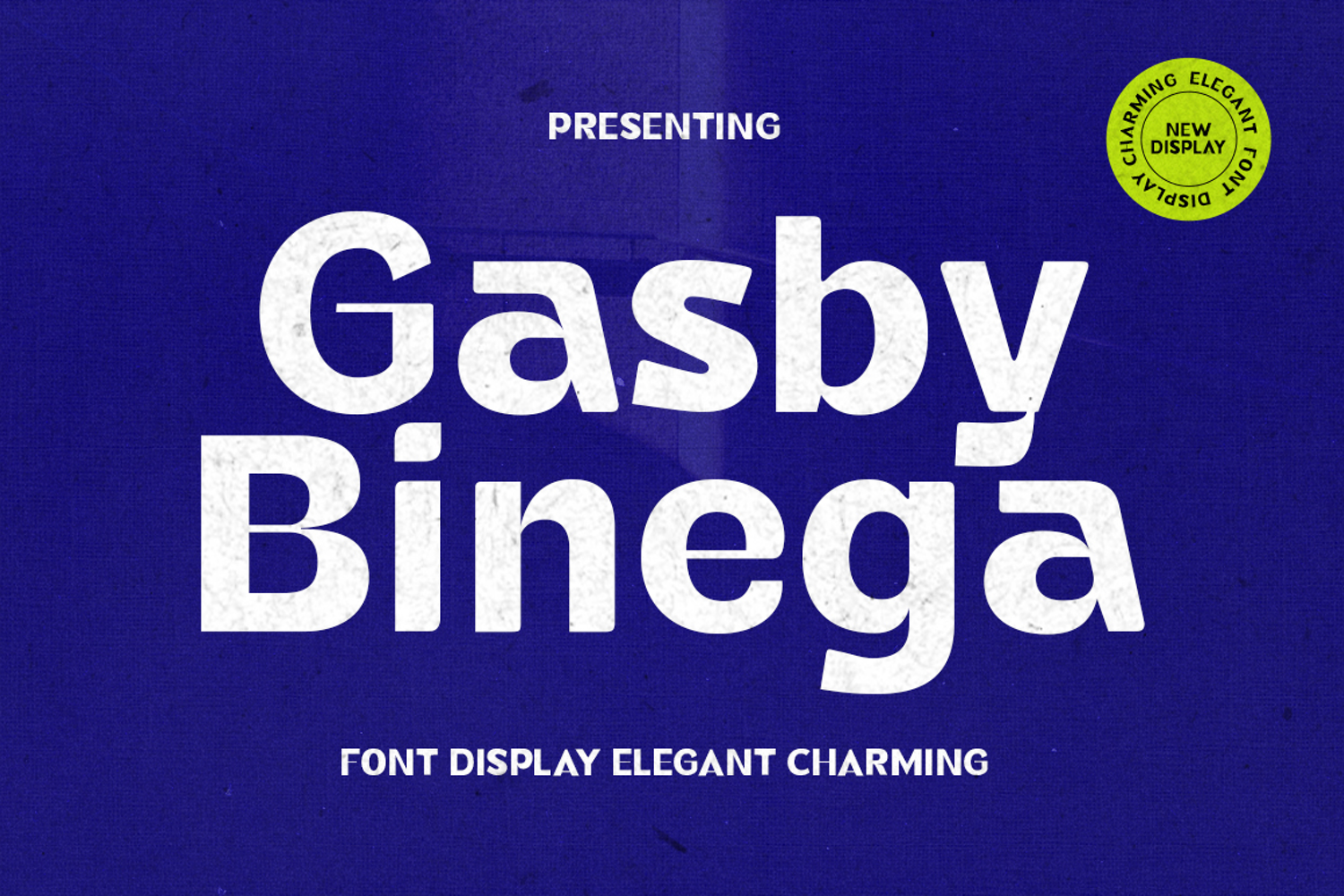
Gasby Binega
The Gasby Binega font has a vintage style with an elegant and modern touch, drawing inspiration from a variety of characters. It has several built-in alternatives, perfect for creating logo designs, Instagram Stories, Instagram posts, logos, magazines, web designs, posters, invitation cards, packaging, badges, logos, apparel designs, labels, and much more. This font will make your designs more distinctive and attractive.
Gasby Binega also has multilingual support, so you can use the language you prefer. This font has kept up with this year's design trends, making your designs even more attractive and elegant.